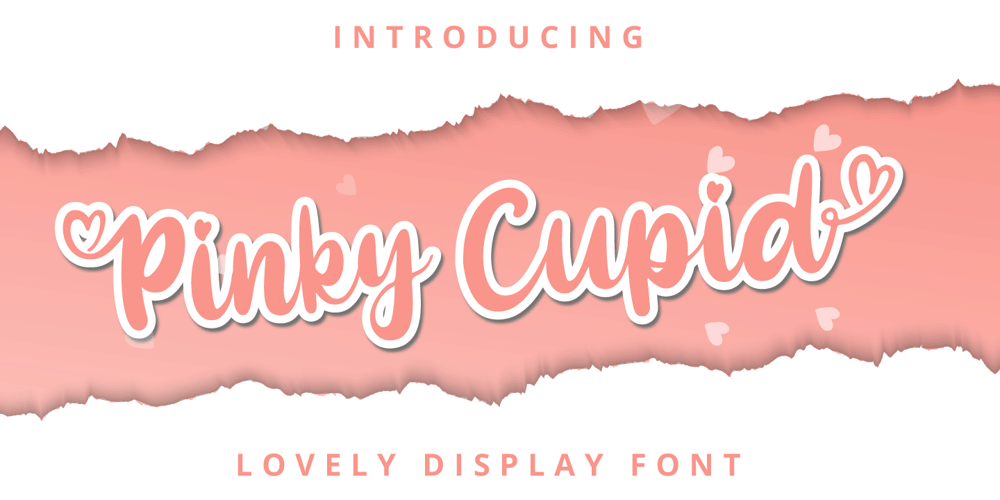
Pinky Cupid Font Family was designed by Fadli Ramadhan Iskandar and published by Attype Studio. Pinky Cupid contains 1 styles and family package options. Pinky Cupid is lovely display font, including stylistic alternates that perfect for any combination for your design. Pinky Cupid perfectly macth for design with valentine theme, any product like book cover, t-shirt, branding, promotion, social media post, quotes, wedding, photography and more. What’s included:- Multilingual Support- Support OpenType features- Works on PC & Mac- Simple installations- Accessible in the Adobe Illustrator, Adobe Photoshop, Adobe InDesign—Hope you enjoy with our font!Attype Studio